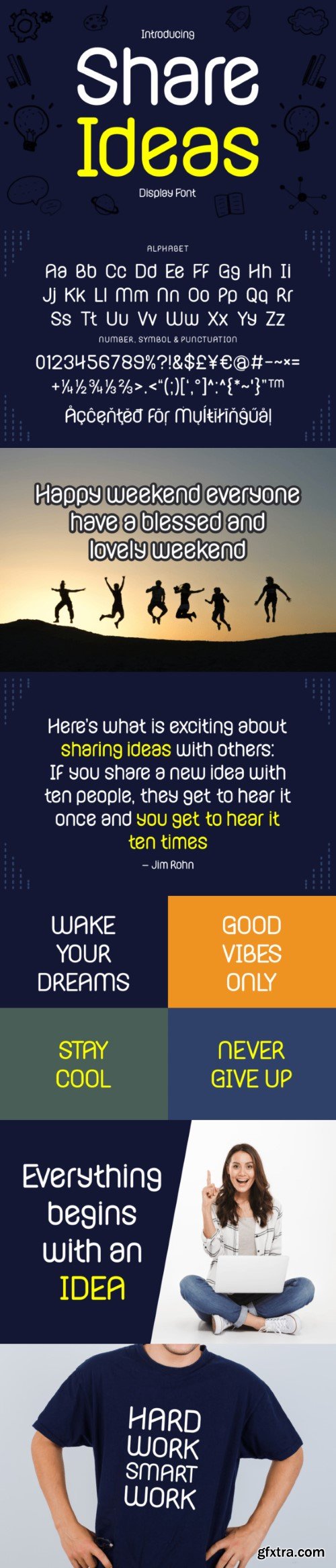
分享想法字体
Share Ideas is a lively and fun display font that brings a playful vibe to your designs. With its whimsical style, this font is perfect for adding a touch of creativity to your projects. Whether you’re working on presentations, posters, or social media graphics, Share Ideas will infuse your text with a cheerful and dynamic energy. Let your ideas shine with this engaging and versatile font that makes every message feel vibrant and approachable.